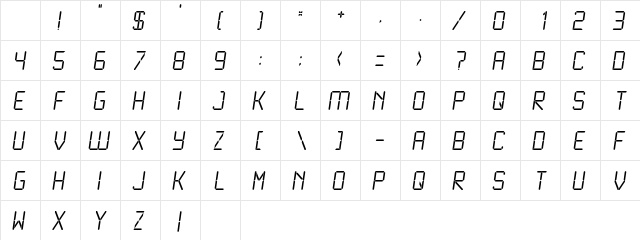
Complete Liquid Crystal Light Italic glyph index. Displaying only characters natively supported by Liquid Crystal Light Italic font.
Liquid Crystal is a composed and adaptable typeface that performs quietly and consistently across a wide range of design contexts. The slanted form adds forward momentum and visual energy. Its slender proportions lend an understated elegance to any composition.
Pro Tip: Use Liquid Crystal for emphasis, pull quotes, and subheadings where its slanted energy can add rhythm to the layout.